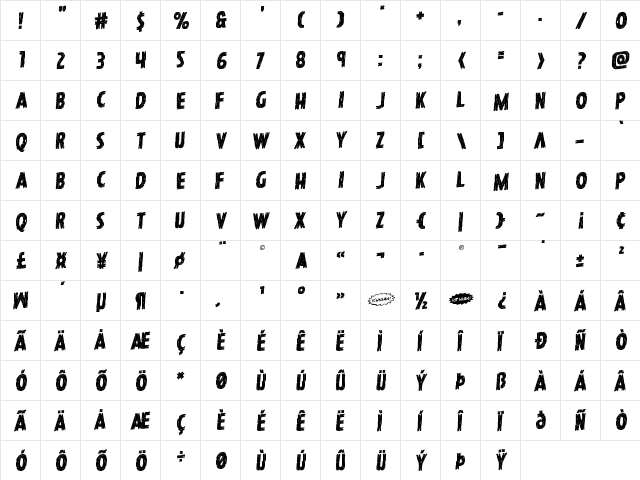
Hanging Tree Rotalic Italic
Design Context for Hanging Tree Rotalic Typeface
Hanging Tree Rotalic is a composed and adaptable typeface that performs quietly and consistently across a wide range of design contexts. The slanted form adds forward momentum and visual energy.
Pro Tip: Use Hanging Tree Rotalic for emphasis, pull quotes, and subheadings where its slanted energy can add rhythm to the layout.